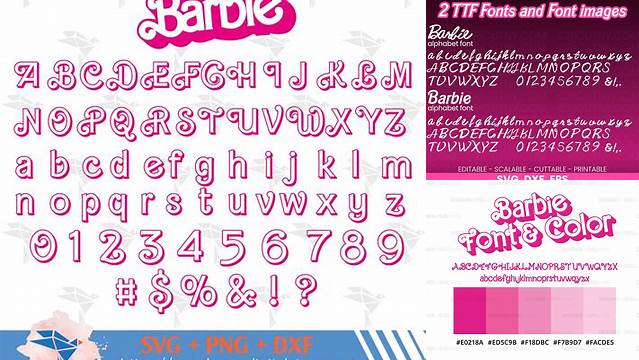
Barbie Font: Using It In Cricut Design Space
Hey crafters! Ever wondered how to get that iconic Barbie font onto your Cricut Design Space projects? You're in the right place! We're diving deep into everything you need to know to make your crafts pop with that signature Barbie flair. Let's get started, guys!
H2: Identifying Fonts Similar to Barbie
Finding a font that closely resembles the Barbie font is a great alternative if you're aiming to avoid licensing issues. Several fonts capture the same playful and stylish essence. Some popular choices include Brush Script MT, Lobster, and various script fonts that feature elegant curves and a touch of whimsy. These fonts can often be found for free or at a low cost on websites like DaFont, Google Fonts, and Creative Fabrica. When selecting a similar font, pay attention to the thickness of the lines, the presence of swashes, and the overall aesthetic. Experiment with different options to see which one best suits your project. You might even find that combining elements from multiple fonts gives you the perfect Barbie font vibe without directly copying the original. This approach allows you to maintain creative control and ensure your designs are unique and legally sound. Don't be afraid to get creative and explore different font pairings!
H2: Using the Barbie Font for Vinyl Cutting
Using the Barbie font for vinyl cutting can add a touch of elegance and fun to your projects. Once you've added your text in Cricut Design Space, ensure the font size and spacing are appropriate for your design. Next, prepare your vinyl. Place the vinyl on your cutting mat, making sure it's smooth and properly aligned. In Cricut Design Space, click the "Make It" button. This will take you to the cutting preview screen. Here, you can mirror your design if you're using heat transfer vinyl (HTV). Mirroring is essential because you'll be applying the vinyl with the adhesive side down. Select your material settings based on the type of vinyl you're using. For example, if you're using Cricut brand vinyl, you can select the corresponding setting from the material list. Load the cutting mat into your Cricut machine and press the "Go" button. The machine will begin cutting your design. Once the cutting is complete, carefully remove the vinyl from the mat. Weed away the excess vinyl, leaving only the Barbie font design. Now you're ready to transfer the vinyl to your chosen surface using transfer tape or heat press, depending on the type of vinyl.
H2: Creating Barbie-Themed Designs
Creating Barbie-themed designs is all about capturing the essence of Barbie's iconic style. Think pink, glitter, and a touch of glamour! Start by choosing a color palette that reflects Barbie's aesthetic. Pinks, purples, and pastels are classic choices. Incorporate the Barbie font (or a similar script font) to add a touch of elegance. Use images and graphics that evoke Barbie's world, such as silhouettes of Barbie, her logo, or iconic symbols like stars and hearts. Consider adding embellishments like glitter, rhinestones, or ribbon to enhance the design. You can create Barbie-themed designs for various projects, including birthday party decorations, personalized gifts, and apparel. For example, you could create a custom t-shirt with the Barbie font and a silhouette of Barbie. Or, you could design a set of invitations for a Barbie-themed party. The possibilities are endless! Just let your creativity flow and have fun with it.
H2: Troubleshooting Font Issues in Cricut Design Space
Sometimes, you might encounter issues when using fonts in Cricut Design Space. One common problem is that the Barbie font (or any font) doesn't appear in the font list after installation. This usually happens because Cricut Design Space needs to be restarted after installing a new font. Close the program completely and reopen it. This should refresh the font list and make the new font available. Another issue is that the font might not display correctly, appearing as squares or garbled characters. This can happen if the font file is corrupted or if there's a compatibility issue. Try reinstalling the font or downloading it from a different source. If the problem persists, try using a different font that's similar to the Barbie font. If you're having trouble with font spacing or kerning, use the letter spacing and line spacing tools in Cricut Design Space to adjust the text. Experiment with different settings until the text looks the way you want it to. Don't be afraid to ask for help on Cricut forums or social media groups. There are plenty of experienced crafters who can offer advice and troubleshooting tips.
H2: Commercial Use Considerations for Fonts
When using fonts for commercial purposes, it's essential to understand the licensing terms. Most fonts are protected by copyright, which means you need permission from the font designer or foundry to use them for profit. Using a Barbie font without a proper license can lead to legal issues, so it's crucial to do your research. Some fonts come with a commercial license that allows you to use them in products you sell. Others have restrictions, such as limiting the number of products you can create or prohibiting their use in certain types of designs. Before using a font in a commercial project, always check the license agreement. Look for terms like "commercial use," "extended license," or "end user license agreement (EULA)." If you're unsure about the terms, contact the font designer or foundry for clarification. If you can't find a commercial license for the Barbie font, consider using a commercially free font or purchasing a license for a similar font. Websites like Creative Market, Fontspring, and MyFonts offer a wide selection of fonts with commercial licenses. Remember, respecting font licenses is essential for ethical and legal reasons.
H2: Exploring Font Pairing Options
Font pairing is the art of combining different fonts to create a visually appealing and harmonious design. When working with the Barbie font (or a similar script font), it's essential to choose a complementary font that balances its elegance and whimsy. A common approach is to pair a script font with a simple sans-serif font. For example, you could use the Barbie font for headings and a font like Arial or Helvetica for body text. This creates a clear visual hierarchy and makes the design easy to read. Another option is to pair two different script fonts, but this can be tricky. Make sure the fonts have different styles and weights to avoid clashing. For instance, you could pair a bold, modern script font with a delicate, calligraphic script font. Experiment with different font combinations to see what works best for your project. Use online tools like FontPair or Canva's font combination tool to get inspiration and ideas. Consider the overall tone and style of your design when choosing fonts. If you're creating a fun, playful design, you might choose more whimsical fonts. If you're creating a more sophisticated design, you might opt for more classic and elegant fonts. Ultimately, the goal is to create a font pairing that enhances the overall design and conveys the intended message.
H3: Barbie Font and Event Planning
Using the Barbie font in event planning can add a touch of fun and elegance, especially for events that cater to a feminine or nostalgic theme. The key is to use it strategically and in conjunction with other design elements to create a cohesive and visually appealing experience. Consider using the Barbie font for invitations, signage, and decorations. For invitations, use it for the event title or for the names of the honorees. For signage, use it to create welcome signs, directional signs, or informational signs. For decorations, use it to create banners, table numbers, or centerpieces. You can also use the Barbie font to personalize event favors or gifts. Add names, dates, or special messages to make them extra special. When using the Barbie font for event planning, it's important to consider the overall theme and style of the event. Use it in conjunction with other fonts, colors, and design elements to create a cohesive and visually appealing look. For example, you can pair the Barbie font with a more traditional font to create a balanced and elegant design. You can also use it with pastel colors and floral patterns to create a feminine and whimsical look. With careful planning, you can use the Barbie font to create a memorable and stylish event.